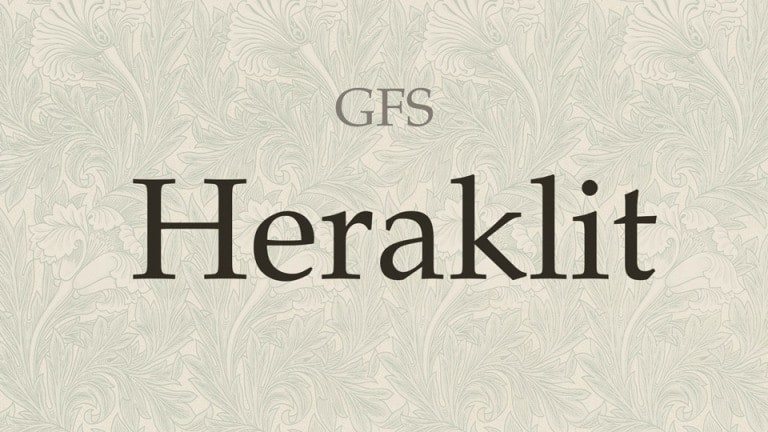
GFS Heraklit Serif Font
GFS Heraklit Serif Font was designed with the express aim not to be like the typical modern Greek faces, but to harmonize with Renaissance roman types such as Palatino, Garamond, Aldus etc. This font is a serif typeface based on the original design by Hermann Zapf in 1953-1954. , and consequently it was never widely used in post-WWII Greek publications.
At the end of the 20th century it served as the base for the Greek glyphs of Palatino (Unicode). The original characters were digitized by George D. Matthiopoulos and the font GFS Heraklit-Regular was created by Daniel Benjamin Miller and Antonis Tsolomitis.